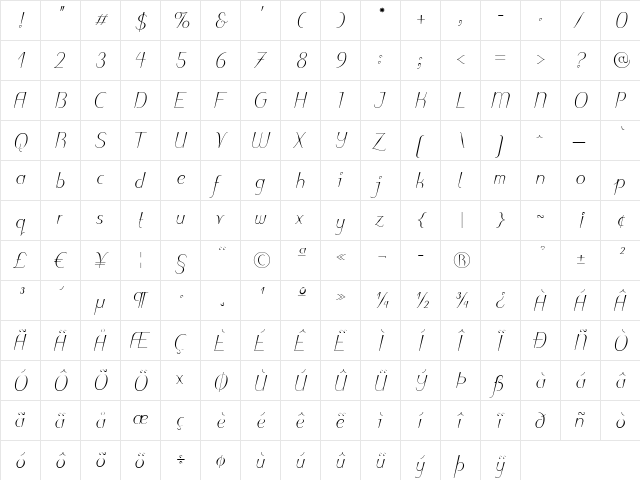
Puritas LT Light Italic Font Preview
| Style | Light Italic |
| Foundry | Linotype Library GmbH or its affiliated companies |
Design Context for Puritas LT Typeface
Puritas LT takes a measured approach to typography — its balanced proportions and neutral character make it a reliable workhorse for both digital and print work. Its italic angle brings a sense of urgency and motion to the letterforms. Its slender proportions lend an understated elegance to any composition.